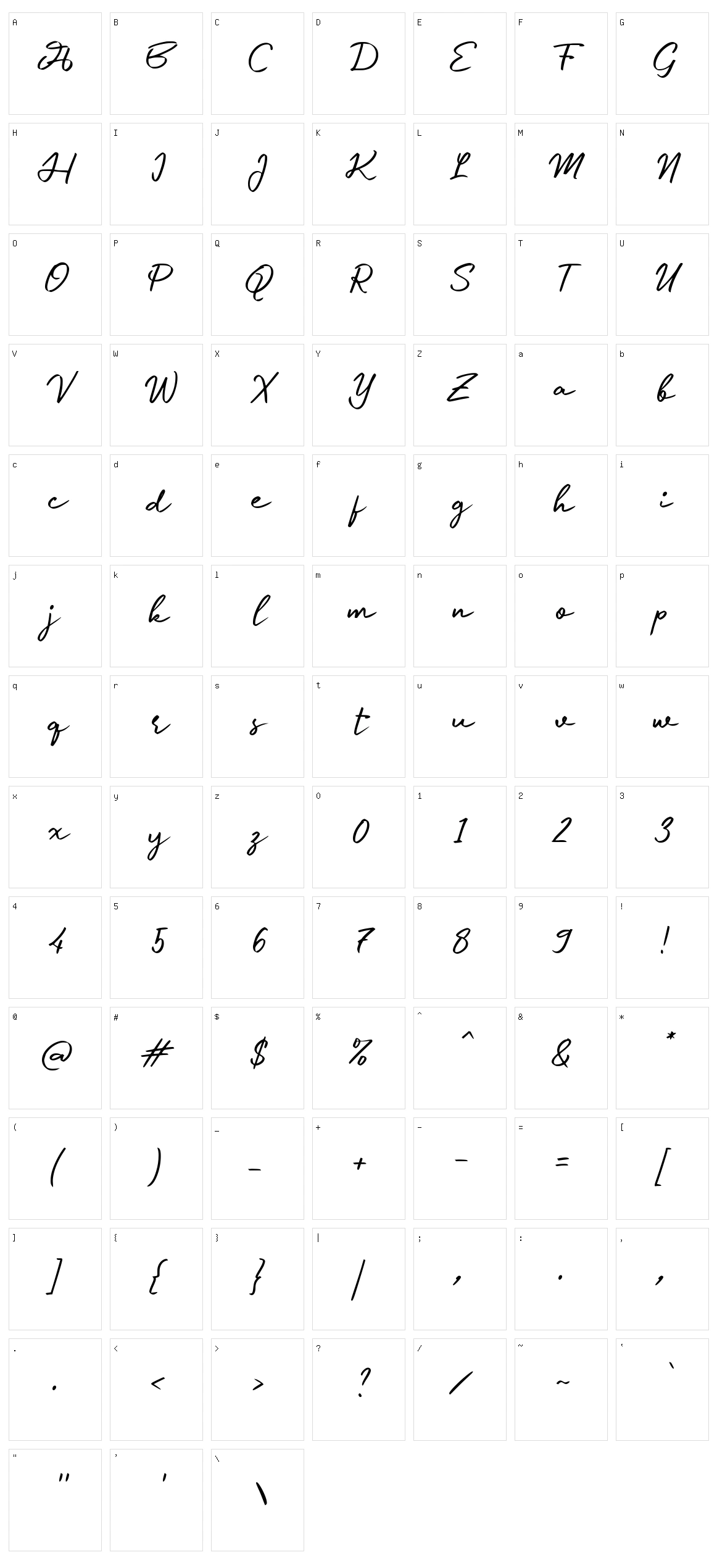
The free font e Equestrian Winter is carefully designed by wep, showcasing a thoughtful balance of creativity and usability and falls under the Script font style. When you download the ZIP file, it contains only 14.27 KB of font files, making it lightweight and quick to download. Please review the license details below to understand permitted usage and distribution rights. If license information is not available, we recommend using this font for personal projects only or contacting the author directly for commercial usage permissions.